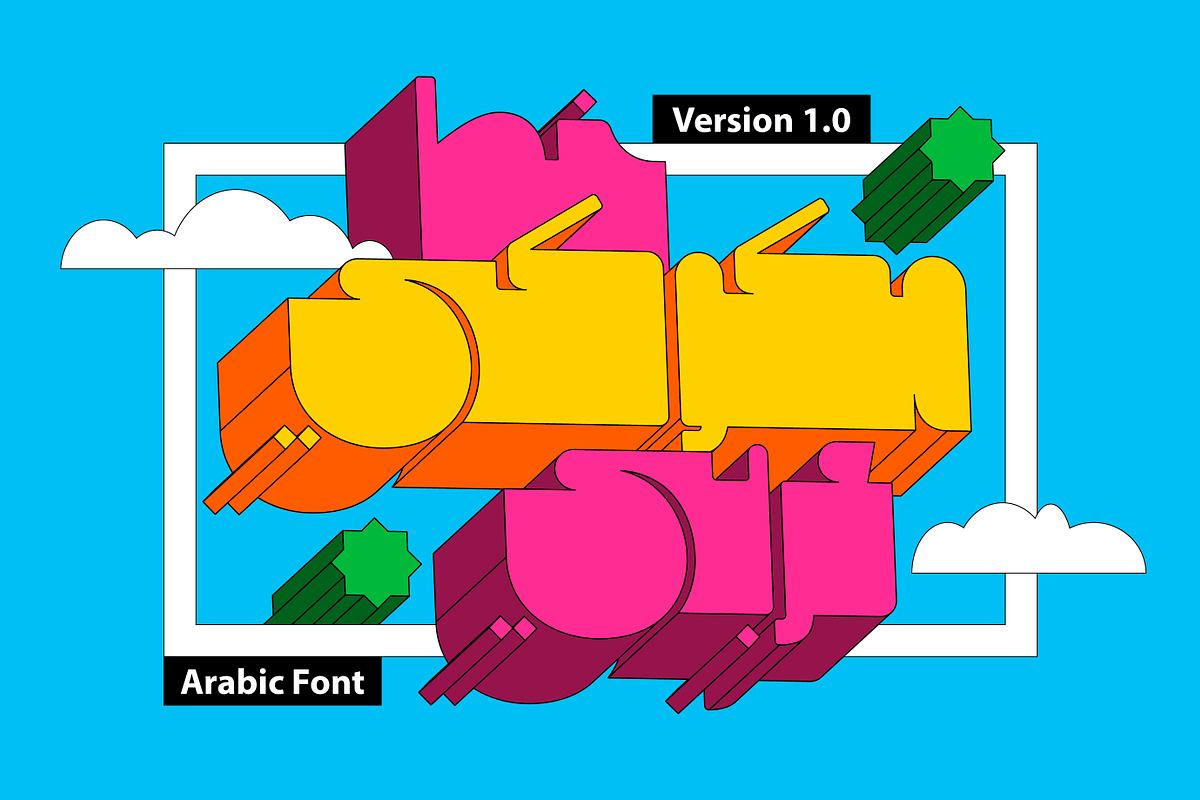
Makouky - Arabic Font Free Download
The Makouky - Arabic Font Free Download is an elegant and modern Arabic typeface that brings sophistication and style to your designs. With its unique and beautifully crafted letterforms, this font is perfect for creating logos, posters, branding materials, and more. Its smooth, flowing lines and intricate design make it ideal for projects requiring an Arabic touch, whether for cultural events, business branding, or creative ventures. The Makouky font adds an authentic, artistic feel to your typography while maintaining legibility and balance. Please note, for commercial use, a license purchase is required. However, you can easily download the Makouky - Arabic Font Free Download for free for personal use and explore its beauty in your designs. Download the Makouky - Arabic Font Free Download today and enhance your creative projects with a stylish, modern Arabic font.